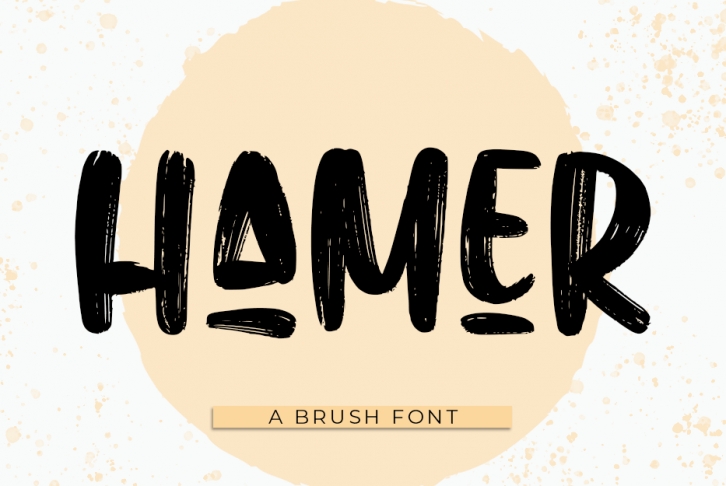
Hamer is a cursive brush display font with a romantic touch. This font will look great on any design idea you want to create. It can add a fun or romantic element to any of your projects!